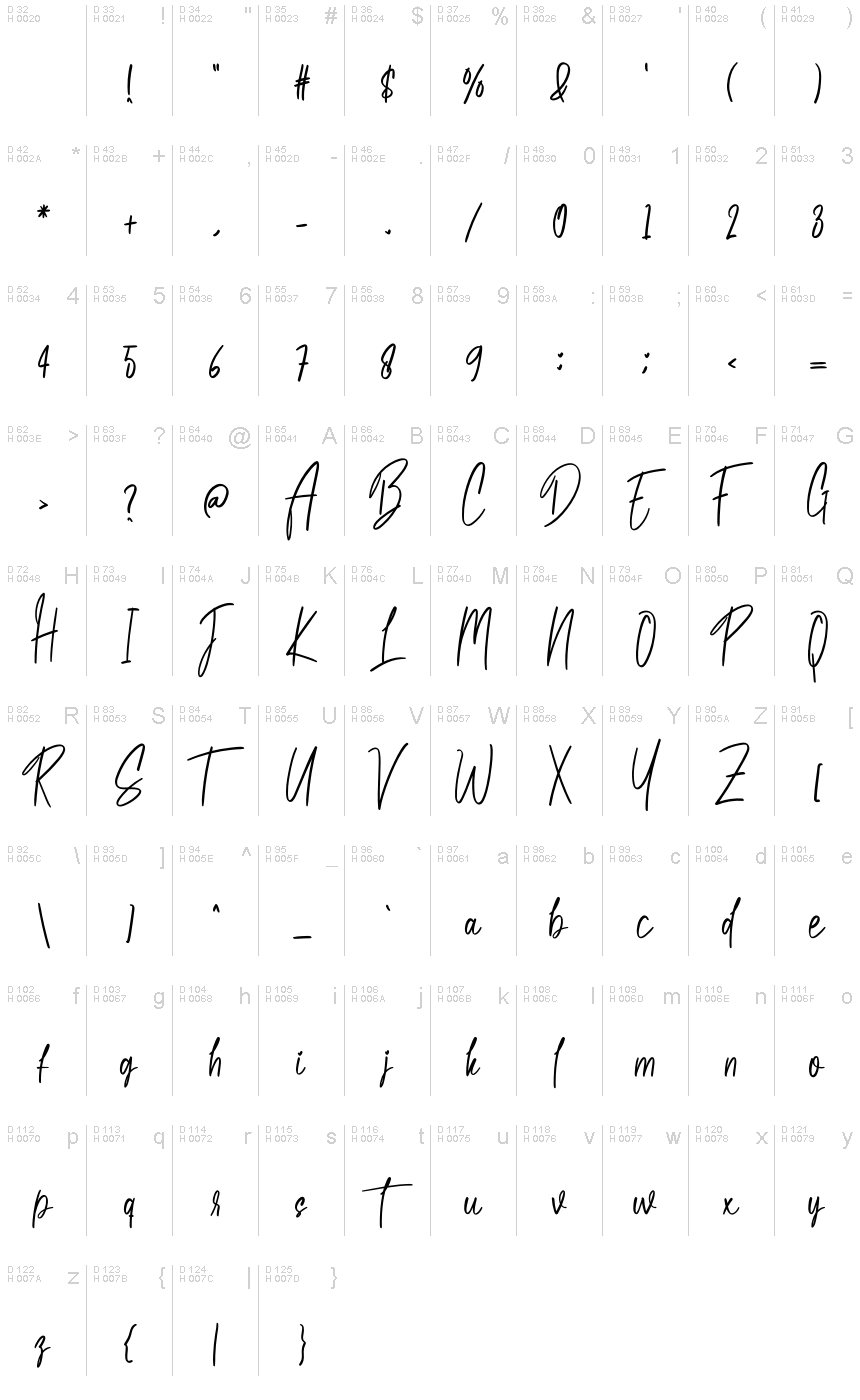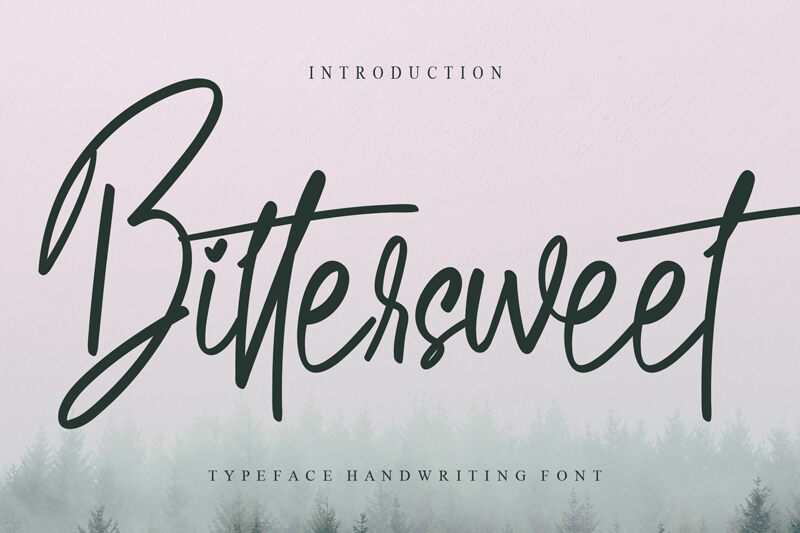
Bittersweet
Bittersweet Font by Scratchones has an eye-catching vintage style with a playful mood. This handwritten font is presented in flowing and personalized curves that have varying contrasting thicknesses. The letters are connected in a cursive manner allowing seamless applications without any effort.
Get creative with Bittersweet’s character set which entirely supports capitals and small letters, numbers, symbols, and many ligatures. Sketch fun branding logos, packaging designs, book covers, invitation cards to fun parties or weddings plus identity work for cafes and restaurants.